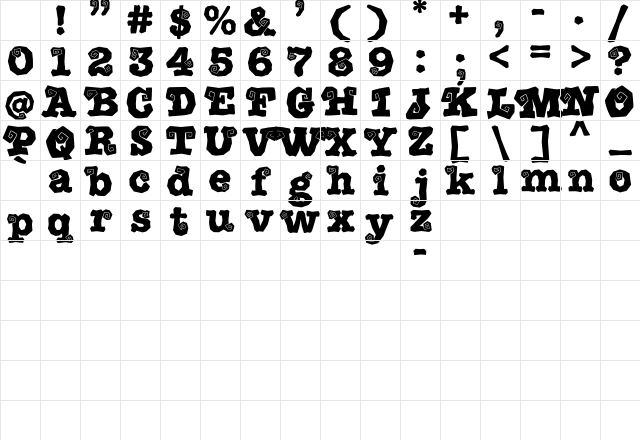
Creepy Spiders Demo carries an unsettling edge - its distorted letterforms are built to unsettle, perfectly suited to horror, Halloween, and dark creative work.
Font Pairing: Pair with a clean neutral sans-serif for body copy to let Creepy Spiders Demo's character lead without overwhelming the composition.
Pro Tip: Use Creepy Spiders Demo at larger display sizes for maximum impact. Consider generous tracking to let the disturbing character of each letterform breathe.